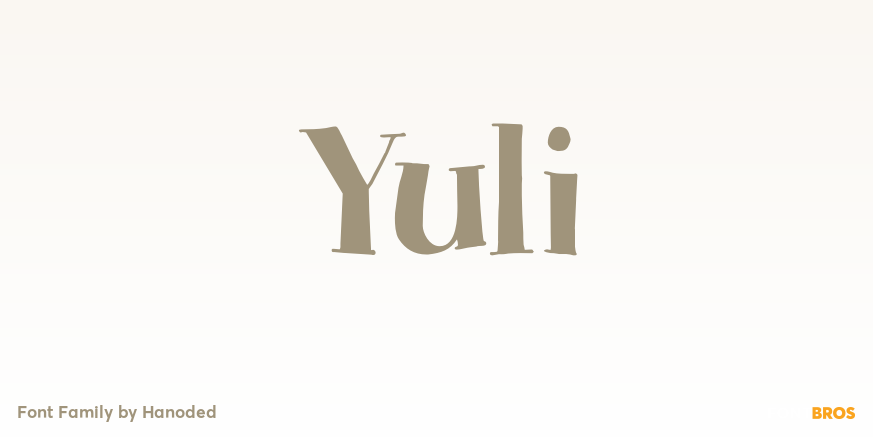
About Yuli
Yuli is my daughter – she was born on February 13th, 2014. I named this font after her, because there are some similarities. Both are bouncy and happy, playful and quirky, funny and happy – and above all: cute and cuddly. Yuli font was loosely based on…